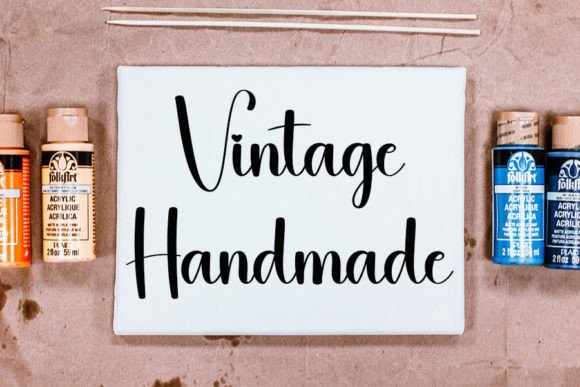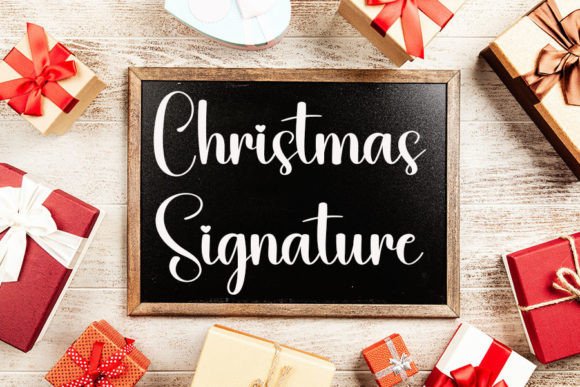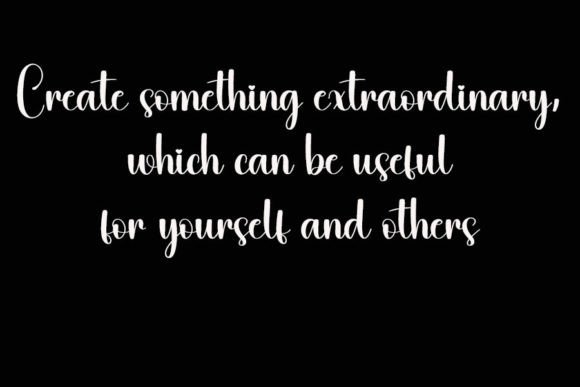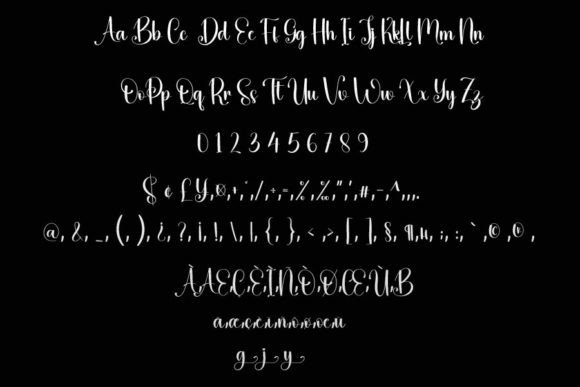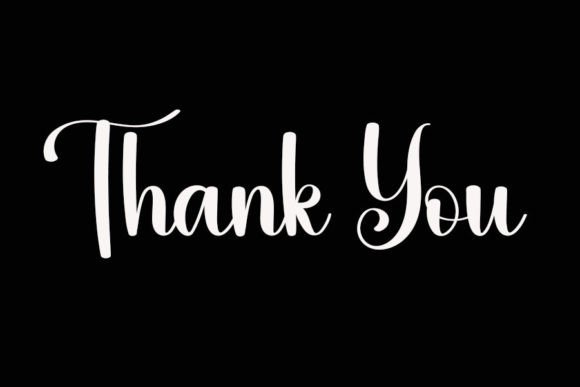
Bingo Font: The Ultimate Handwritten Font for Designers and Crafters
Bingo is a fun and friendly handwritten font that has captured the hearts of designers and crafters alike. Its versatility and charm make it an ideal choice for a wide range of projects, from crafts and digital design to presentations and greeting cards. In this article, we’ll explore the features and benefits of the Bingo font, and why it’s about to become your new favorite go-to font.
What is Bingo Font?
Bingo font is a carefully crafted handwritten font that exudes warmth and friendliness. Its unique character set and flowing strokes make it perfect for adding a personal touch to your designs. Whether you’re creating a digital project or a physical craft, Bingo font is sure to bring a smile to your audience’s faces.
Key Features of Bingo Font
- Handwritten style: Bingo font boasts a genuine handwritten look that’s perfect for creating a personal connection with your audience.
- Versatility: This font is suitable for a wide range of projects, from digital designs to crafts, presentations, and greeting cards.
- Ease of use: Bingo font is easy to read and works well in various sizes, making it perfect for both headings and body text.
- Unique character set: The font features a unique set of characters that add to its charm and personality.
Why Designers Love Bingo Font
Designers love Bingo font for its ability to add a touch of warmth and personality to their designs. Whether you’re creating a logo, brochure, or social media graphics, Bingo font is sure to make your design stand out. Its versatility also makes it an excellent choice for branding projects, as it can be used across various platforms and mediums.
Why Crafters Adore Bingo Font
Crafters adore Bingo font for its ability to add a personal touch to their handmade projects. Whether you’re creating greeting cards, scrapbook pages, or DIY crafts, Bingo font is the perfect choice. Its handwritten style and unique character set make it ideal for adding a touch of personality to your crafts.
Using Bingo Font for Digital Design
Bingo font is not just limited to crafts and print design. It’s also perfect for digital design projects, such as presentations, social media graphics, and website headers. Its clear and readable style makes it easy to use on digital platforms, and its unique character set adds a touch of personality to your designs.
Bingo font is a fun and friendly handwritten font that’s perfect for designers and crafters alike. Its versatility, unique character set, and ease of use make it an excellent choice for a wide range of projects. Whether you’re creating digital designs, crafts, presentations, or greeting cards, Bingo font is sure to become your new favorite go-to font. So why not give it a try and see the magic for yourself?